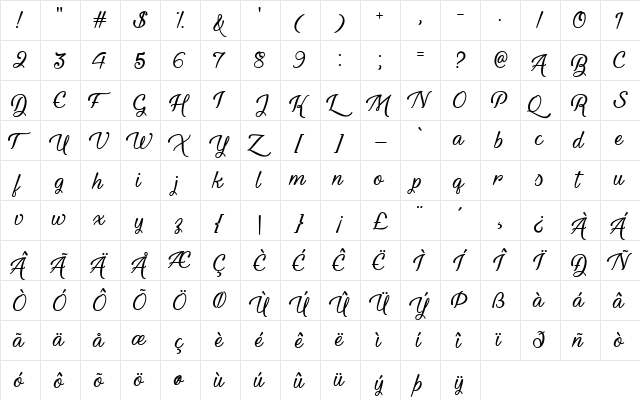
Youth and Beauty Regular
| Foundry | Misti's Fonts |
| Designer | Misti's Fonts |
Design Context for Youth and Beauty Typeface
Youth and Beauty takes a measured approach to typography — its balanced proportions and neutral character make it a reliable workhorse for both digital and print work.